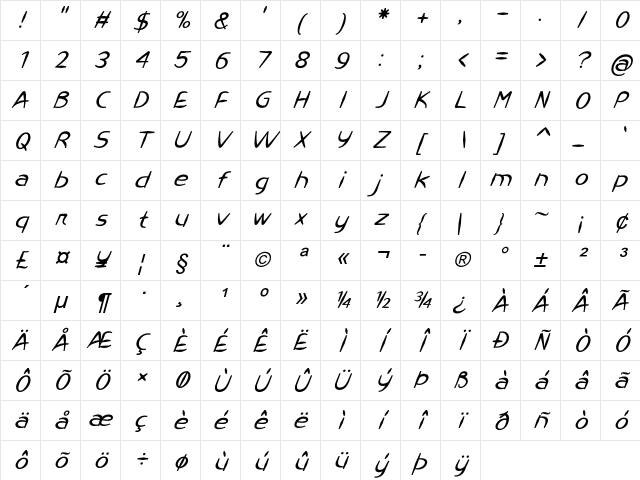
Crackhaus is a composed and adaptable typeface that performs quietly and consistently across a wide range of design contexts. The slanted form adds forward momentum and visual energy.
Pro Tip: Use Crackhaus for emphasis, pull quotes, and subheadings where its slanted energy can add rhythm to the layout.